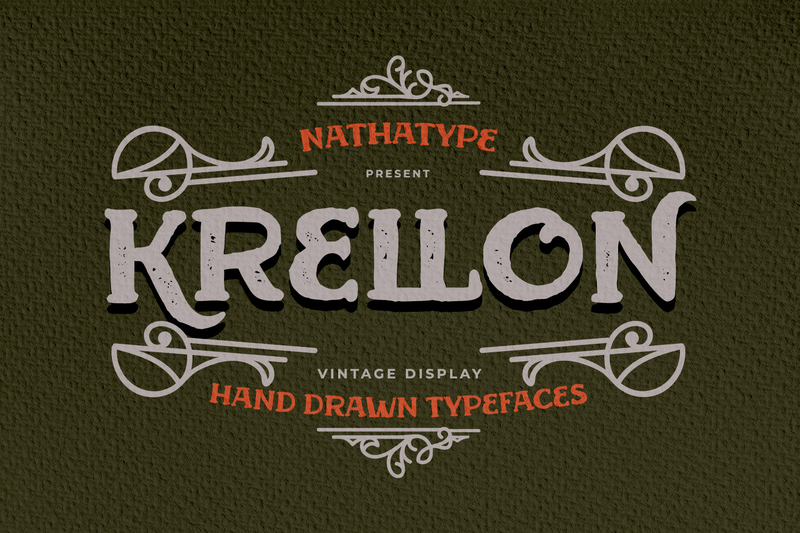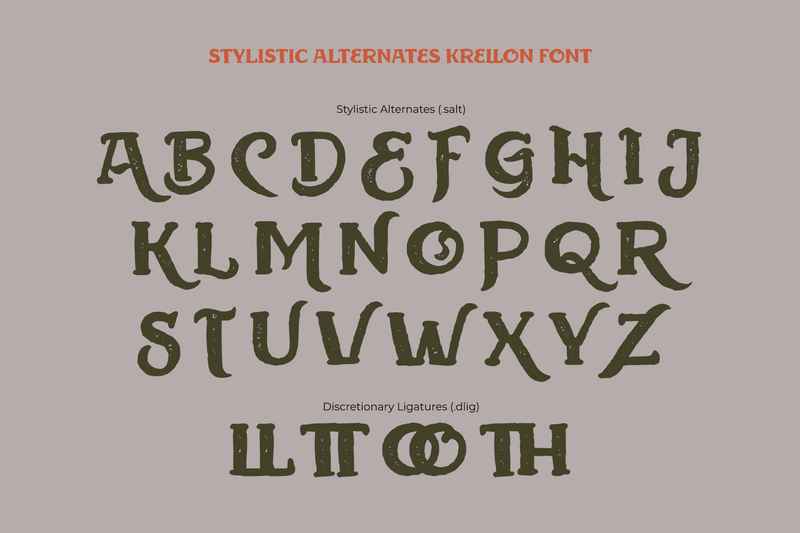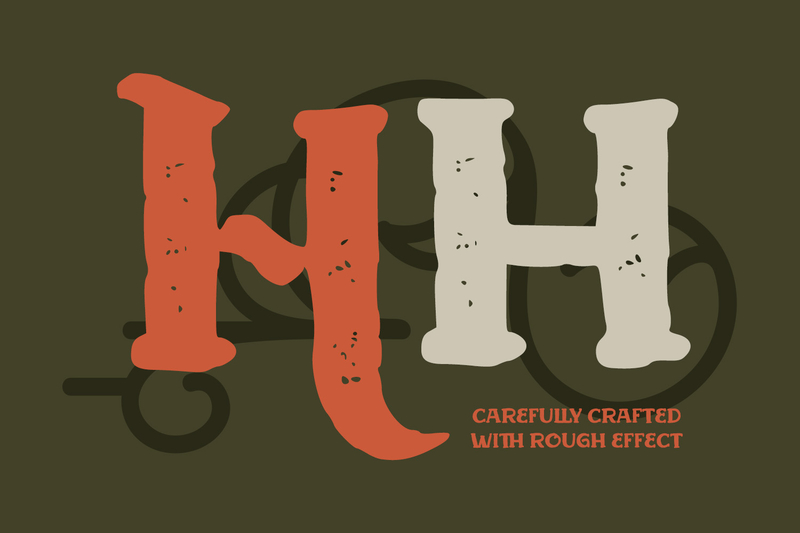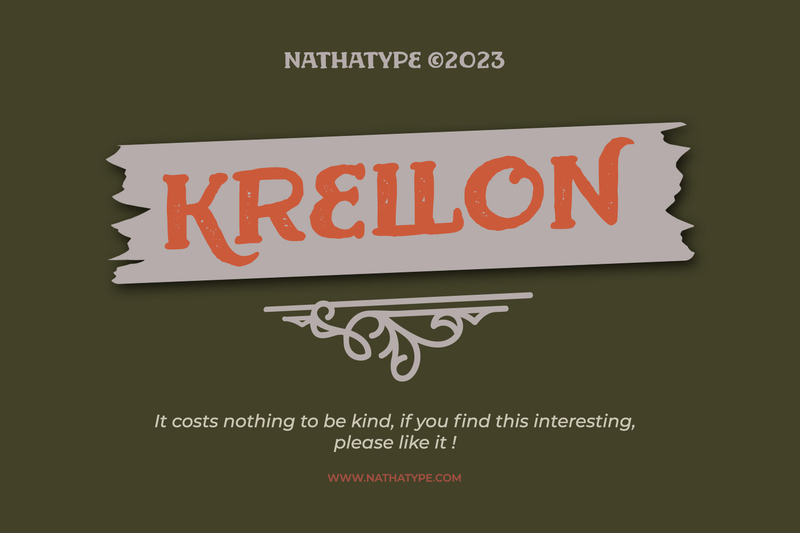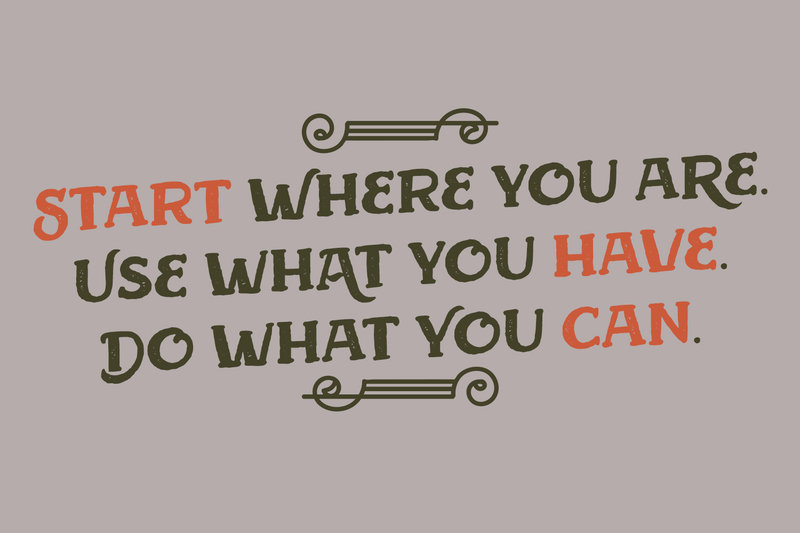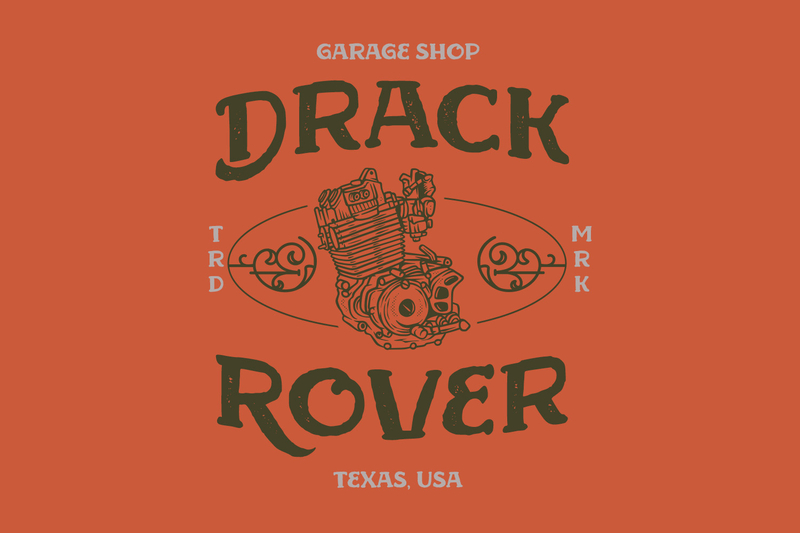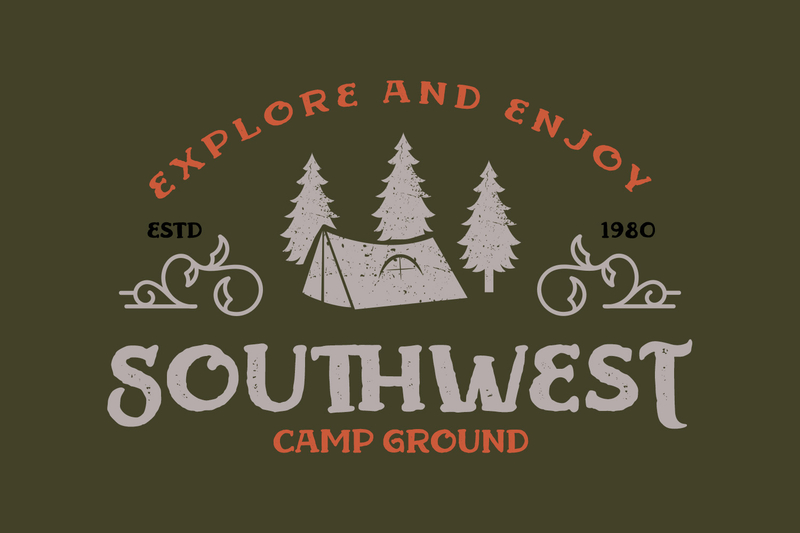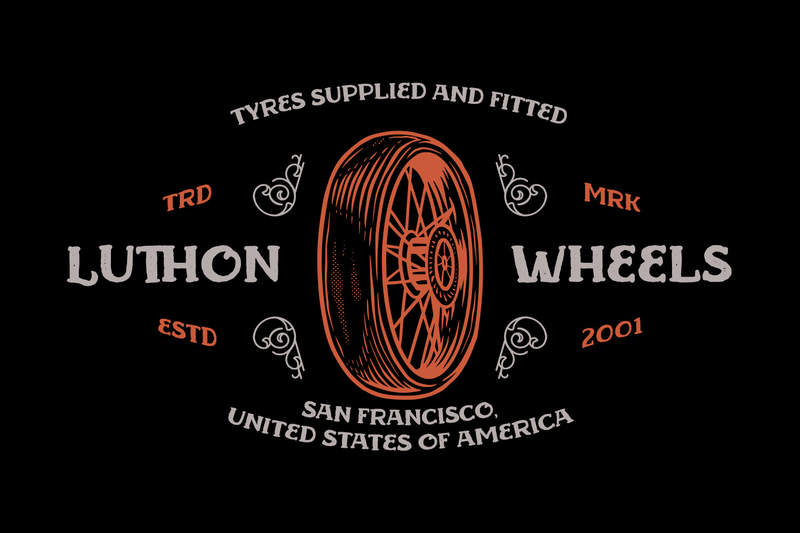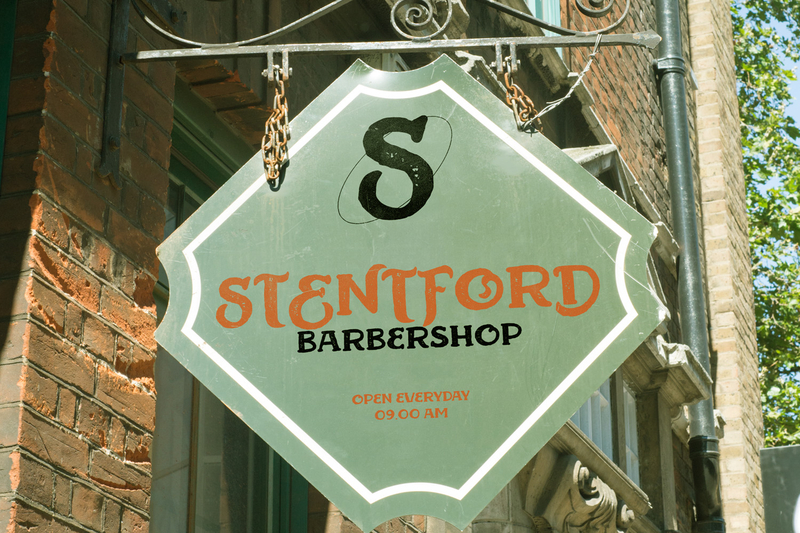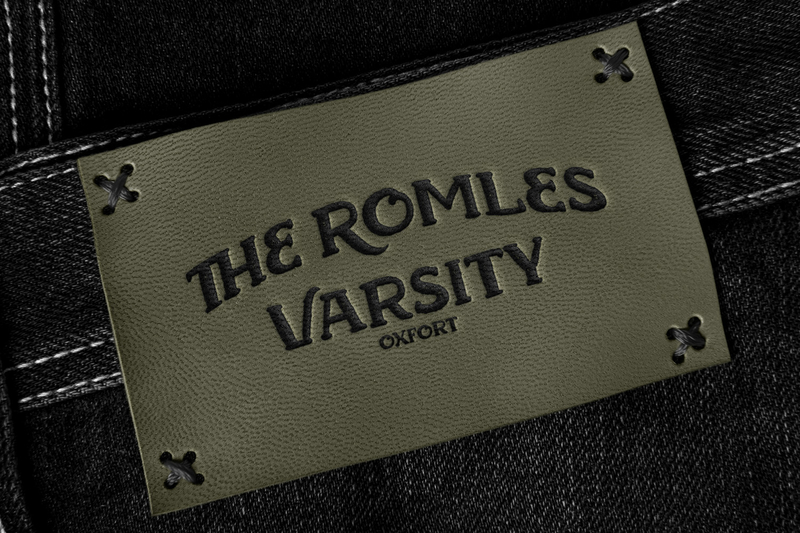
Krellon invites you to step back in time and embrace the elegance of yesteryears with its captivating vintage style. Its uppercase letters exude a classic aesthetic, evoking the spirit of timeless typography. Rounded shapes define each character, creating a sense of approachability and friendliness. These gentle curves soften the vintage aesthetics, giving Krellon a unique blend of nostalgia and readability.
What makes Krellon so special is its subtle, textured appearance. The font carries a delightful roughness that adds authenticity and character to your text, as if each letter has endured the test of time. This texture infuses your designs with depth and intrigue. Beautiful ornaments are included as a bonus. Enjoy the features here.
Krellon fits in headlines, logos, posters, flyers, branding materials, print media, editorial layouts, and many more. Find out more ways to use this font by taking a look at the font preview.